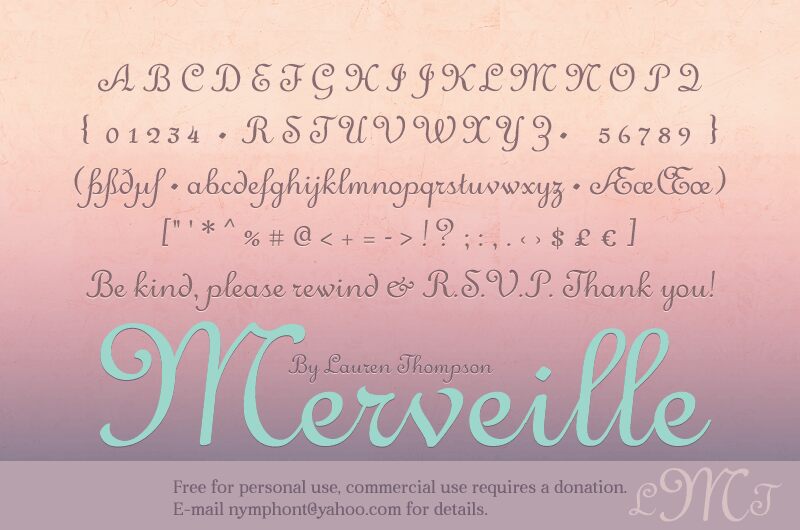
Merveille, a captivating calligraphic font designed by Lauren Thompson, exudes an elegant and refined essence. With its graceful curves and fluid strokes, this font evokes a sense of timeless sophistication, making it a perfect choice for projects that demand a touch of sophistication and artistry.
The Merveille font's distinctive style and attention to detail make it a versatile option for a wide range of design applications, from high-end branding and luxury product packaging to elegant wedding invitations and personalized stationery. Its calligraphic flourishes and seamless letter connections lend a sense of sophistication and exclusivity to any project, making Merveille a standout choice for those seeking to elevate their design aesthetic.
Merveille is a new design by Lauren Thompson created in April of 2013, inspired by the styles of lovely eighteenth and nineteenth century French Ronde type.